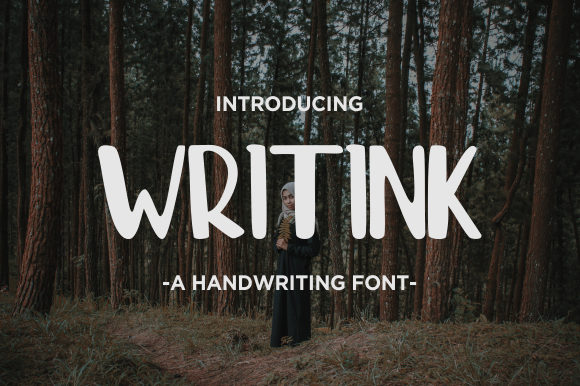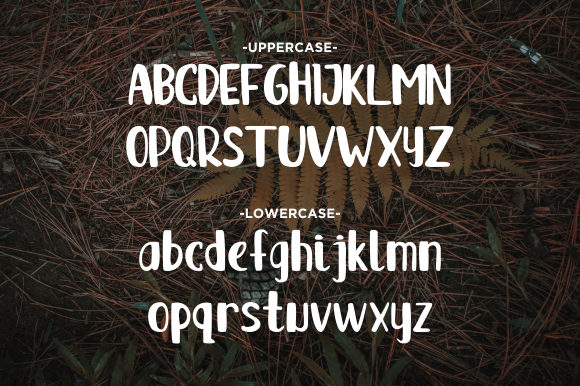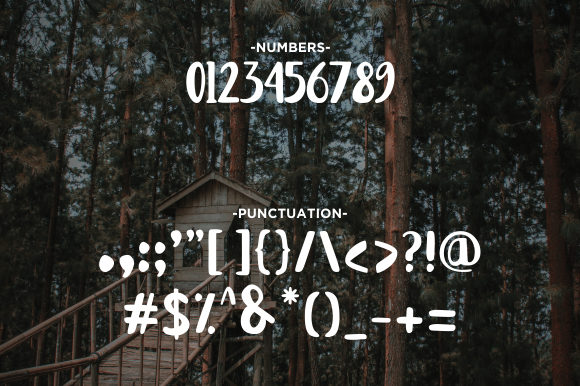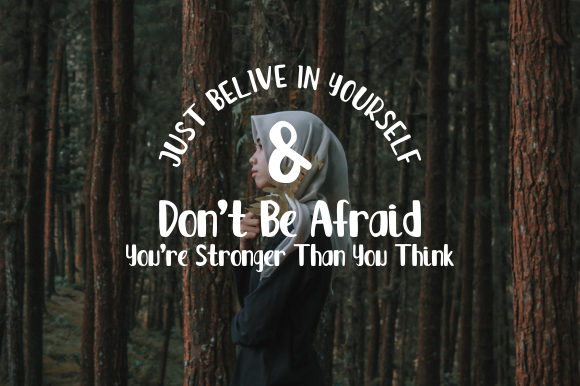
Writink Font
About Writink Font
The Writink is a handwritten font with a bold ink style. It has a natural look and strong characters which are perfect for lettering and doodles.